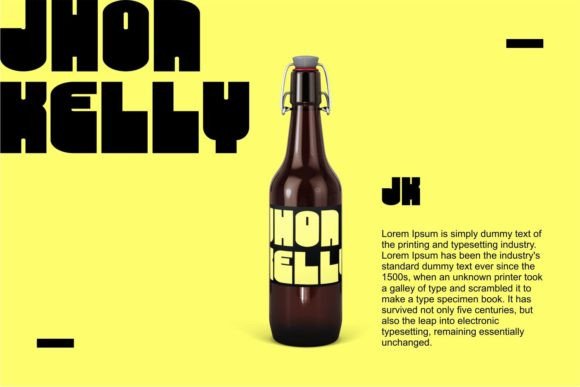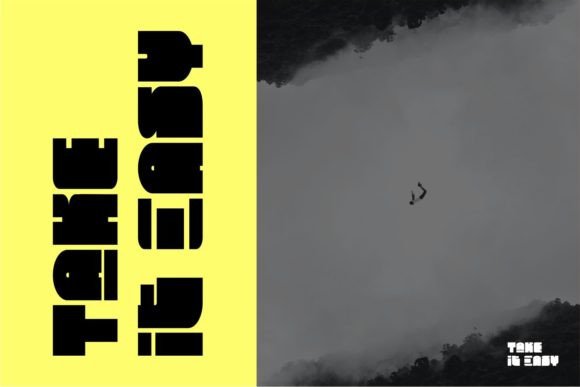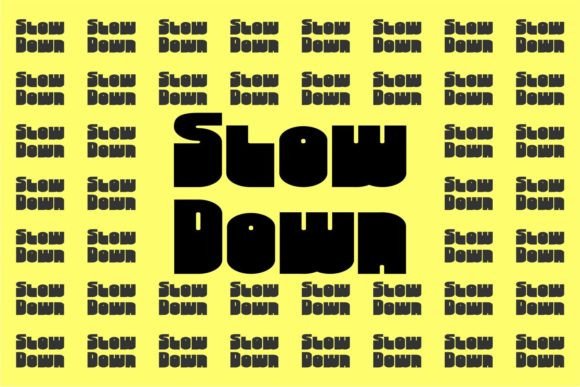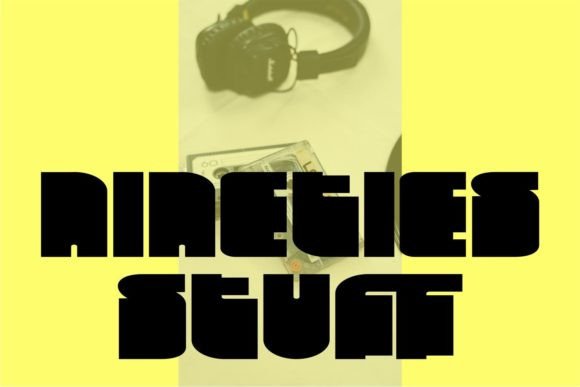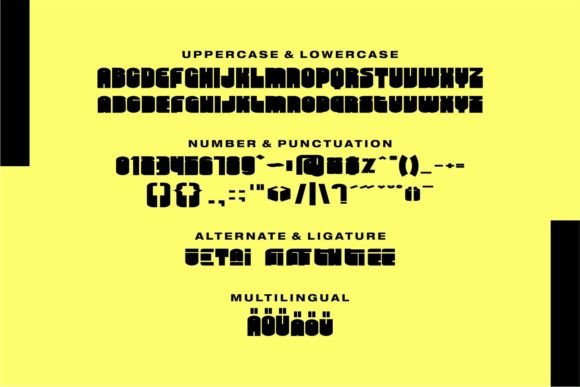
Introduction to Guti Font
Remember the moment when you’re working on a creative project and you just can’t seem to find the right font to capture the essence of your idea? You scroll through font libraries, browse through design resources, and experiment with different styles, but nothing seems to fit. That’s when you stumble upon Guti Font – a funky and cool display font that’s sure to bring a touch of retro glamour to your design.
With its bold and daring typography, Guti Font is the perfect design resource for designers who want to make a statement. Whether you’re working on a graphic design project, a branding campaign, or even a digital illustration, Guti Font’s high-quality design and transparent background make it an invaluable asset in your creative toolkit. And the best part? It’s available for a free download, making it an accessible resource for designers of all levels.
Key Features of Guti Font
- High-quality design: Guti Font is a carefully crafted design resource perfect for creative projects that demand attention to detail.
- Transparent background: The font features a transparent background, making it easy to use in various design scenarios.
- Unique characteristics: Guti Font features a unique, modern design with a blend of geometric and organic elements, making it perfect for creative projects that require a touch of sophistication.
- Professional-grade: Guti Font is designed to meet the needs of professional designers, making it an excellent addition to any design resource library.
Honest Review: Guti Font
I recently stumbled upon the Guti Font and was excited to give it a try for my next creative project. After using it for a while, I’m here to share my honest thoughts.
What works well: ✨ I was blown away by the high quality and uniqueness of this font. It’s perfect for adding a touch of elegance to any design project. The transparent background makes it super easy to use and customize. Plus, it’s a free download, which is always a bonus!
Some notable features include:
- Unique and elegant design
- High-quality glyphs and characters
Limitations: ⚠️ While I love the Guti Font, I did encounter some issues with font sizes and spacing. It can be a bit finicky, especially when working with smaller text sizes. Additionally, the font doesn’t have a lot of variations or styles, which might limit its use in more complex design projects.
Overall, I’m really impressed with the Guti Font and would definitely recommend it for any design resource. With a little patience and tweaking, it can be a great addition to your design toolkit.
Common Use Cases for Guti Font
The Guti Font is ideal for creative projects that require a unique and eye-catching design. It’s commonly used in logos, branding materials, and marketing campaigns. Its high quality and transparent background make it a versatile design resource that can be used in a variety of contexts.